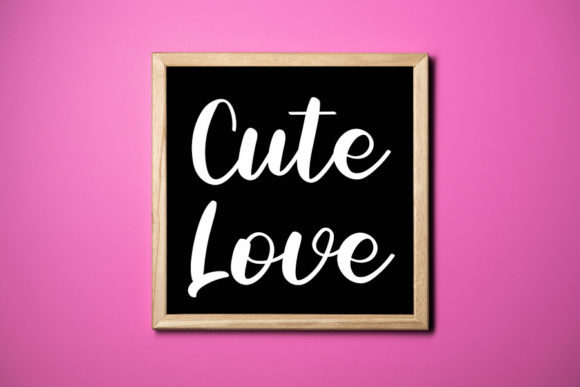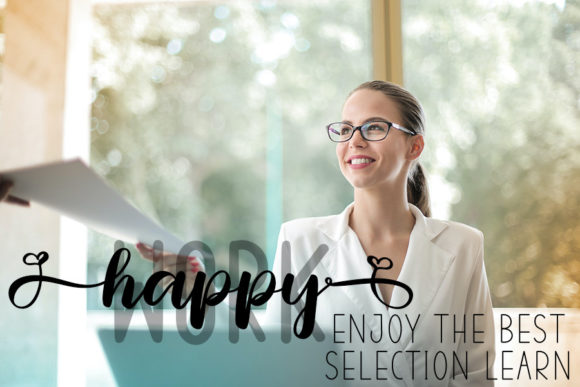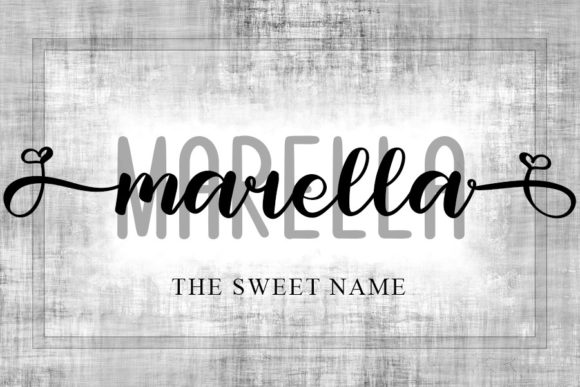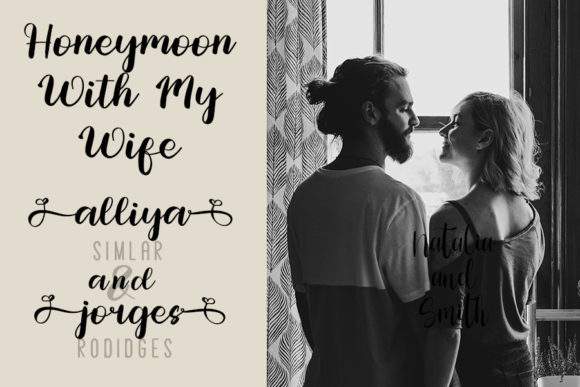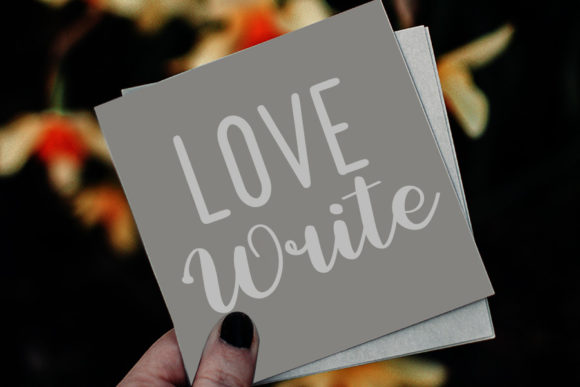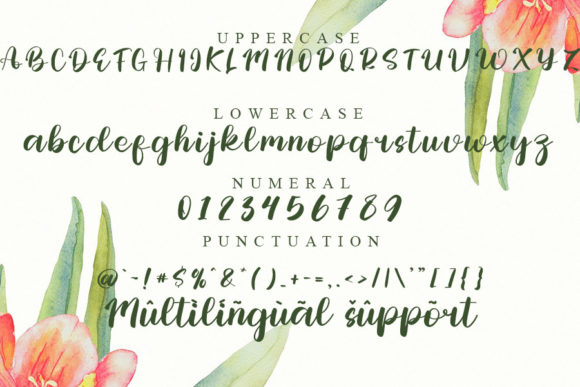
Have you ever found yourself browsing through a vintage love letter, mesmerized by the elegant script that dances across the page? That’s exactly the kind of charm you can bring to your creative project with the Sabilla Font. This delicate script font is perfect for designers who want to add a touch of romance and whimsy to their designs.
As a valuable design resource, Sabilla Font is a game-changer for designers who need a high-quality font that can elevate their work. With its PUA encoding, accessing all the glyphs and swashes is a breeze, making it a dream come true for designers who crave a seamless design experience. Whether you’re working on a project that requires a free download or a design with a transparent background, Sabilla Font is sure to impress.
- High-quality design resource ideal for creative projects, offering a unique and elegant aesthetic.
- Unique characteristics include its sleek and modern design, making it suitable for a variety of creative projects, from branding to digital media.
I recently had the chance to work with the Sabilla Font for a creative project, and I must say it’s been a game-changer. As a designer, I’m always on the lookout for high-quality design resources that can elevate my work. Sabilla Font definitely fits the bill.
- ✨ Unique and elegant design style that adds a touch of sophistication to any project
- ✨ High quality and crisp rendering, even at small font sizes
- ⚠️ Limited font styles and weights, which may not be ideal for complex design projects
- ⚠️ Not as versatile as some other fonts on the market, may not work well with all design styles
Overall, I’m impressed with the Sabilla Font. While it may not be the most versatile font on the market, it’s a great option for designers looking for a high-quality, elegant font that can add a touch of sophistication to their work. With its free download and transparent background, it’s a design resource that’s hard to pass up.
Sabilla Font is commonly used in creative projects that require a high-quality, professional touch. It’s perfect for designing logos, brochures, and business cards. The font’s transparent background makes it ideal for creating text overlays and graphics.
To get the most out of Sabilla Font, use it in conjunction with other high-quality design resources. Experiment with different font sizes, colors, and styles to create visually appealing designs. With Sabilla Font, the possibilities are endless for creating unique and creative designs.